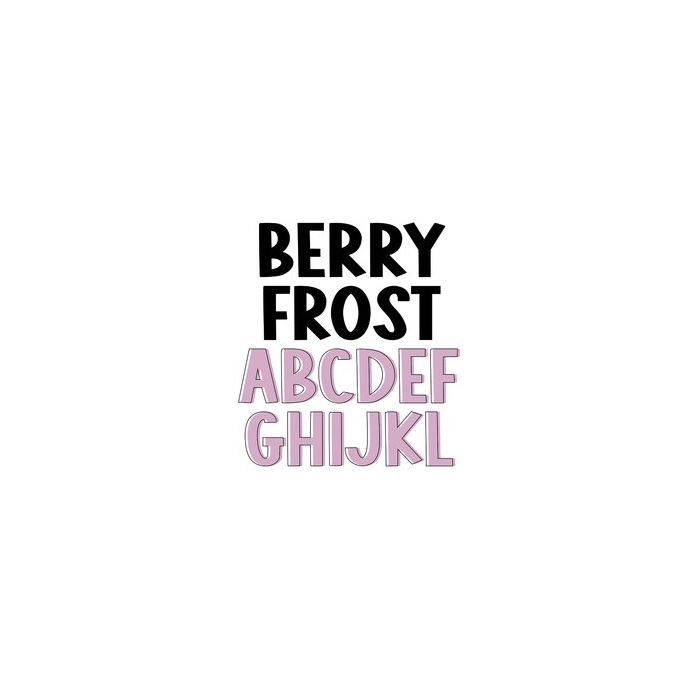
BFC Berry Frost Wide Chunky Marker Winter Block Font
Berry Frost is a wide chunky marker handwriting font. This is a wide version of our font Frosted Cranberry.